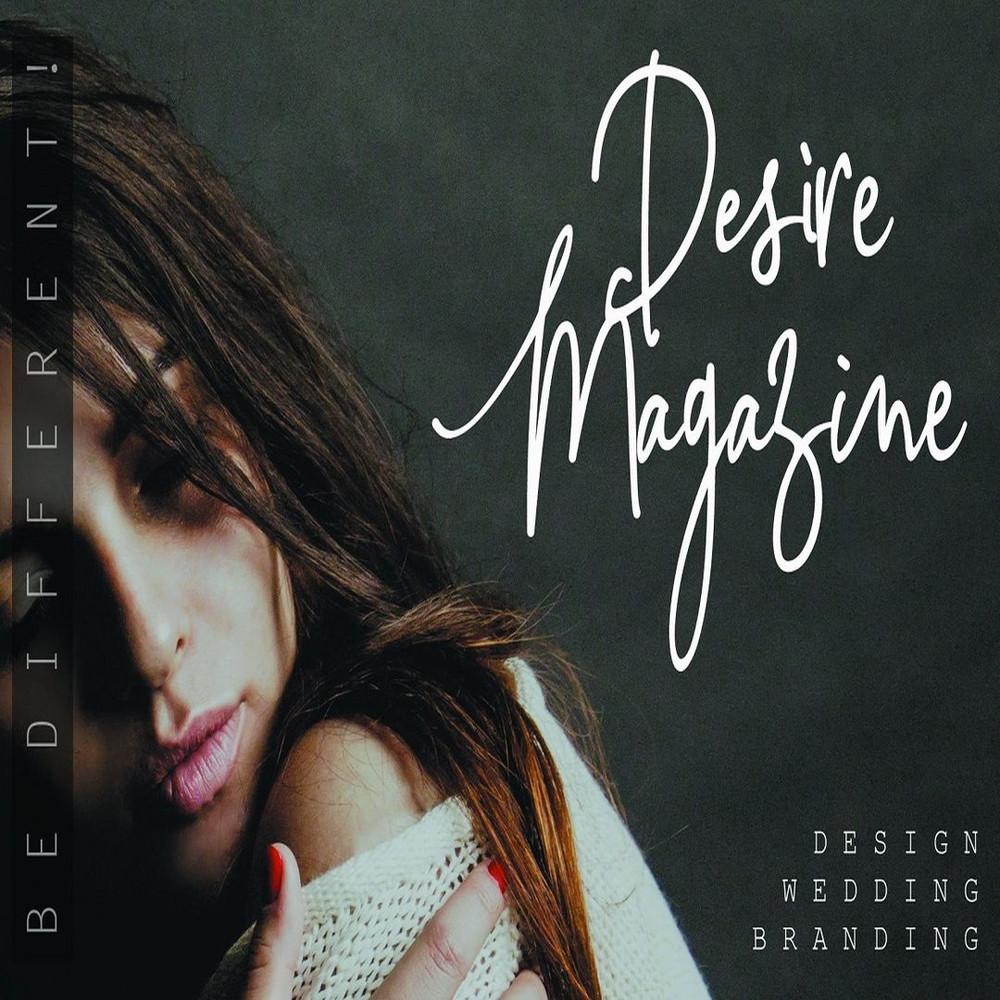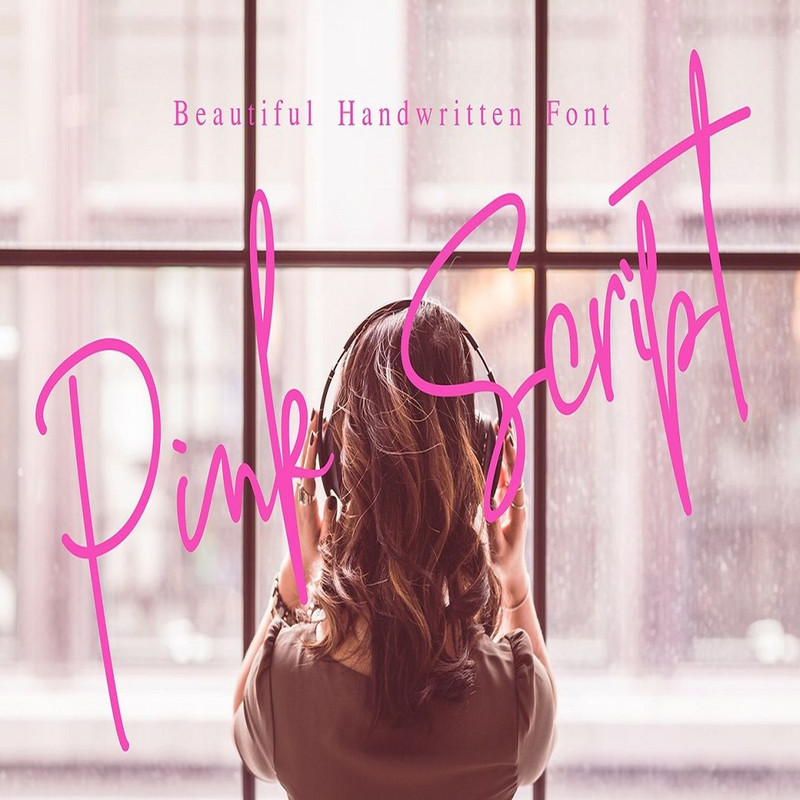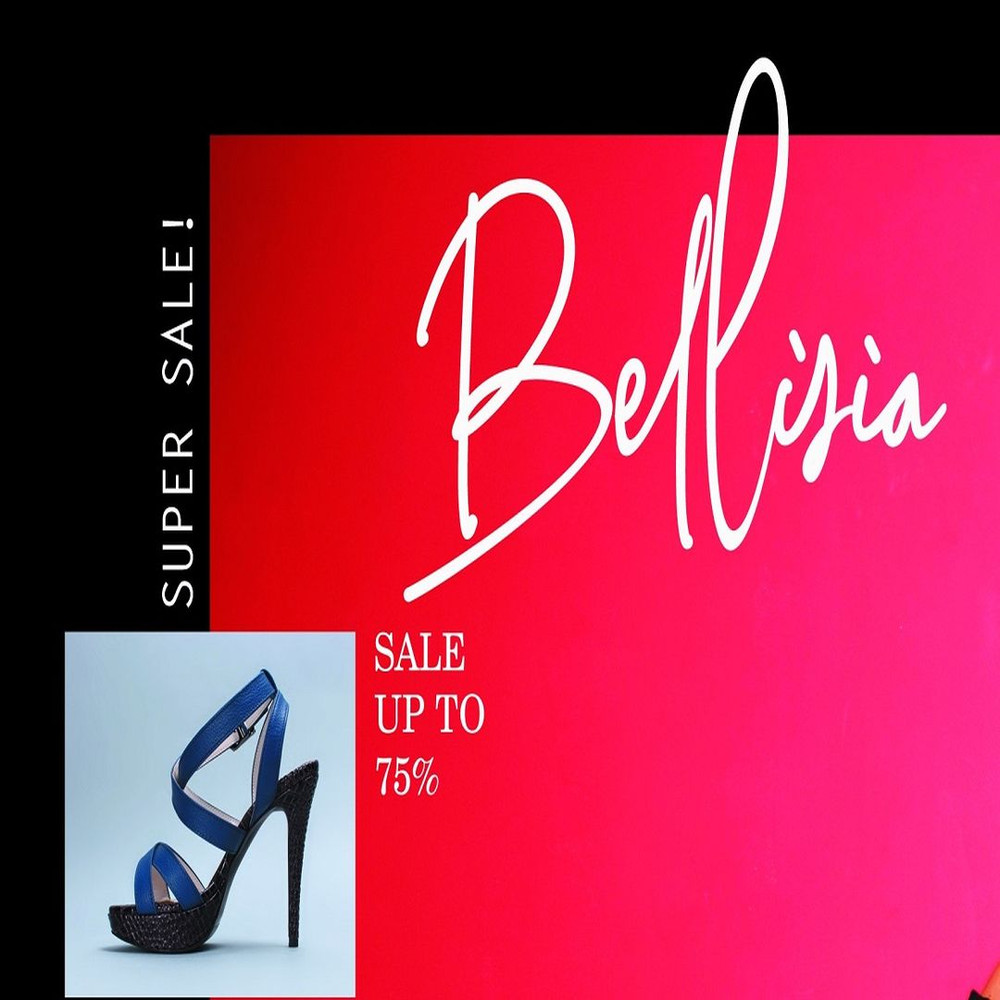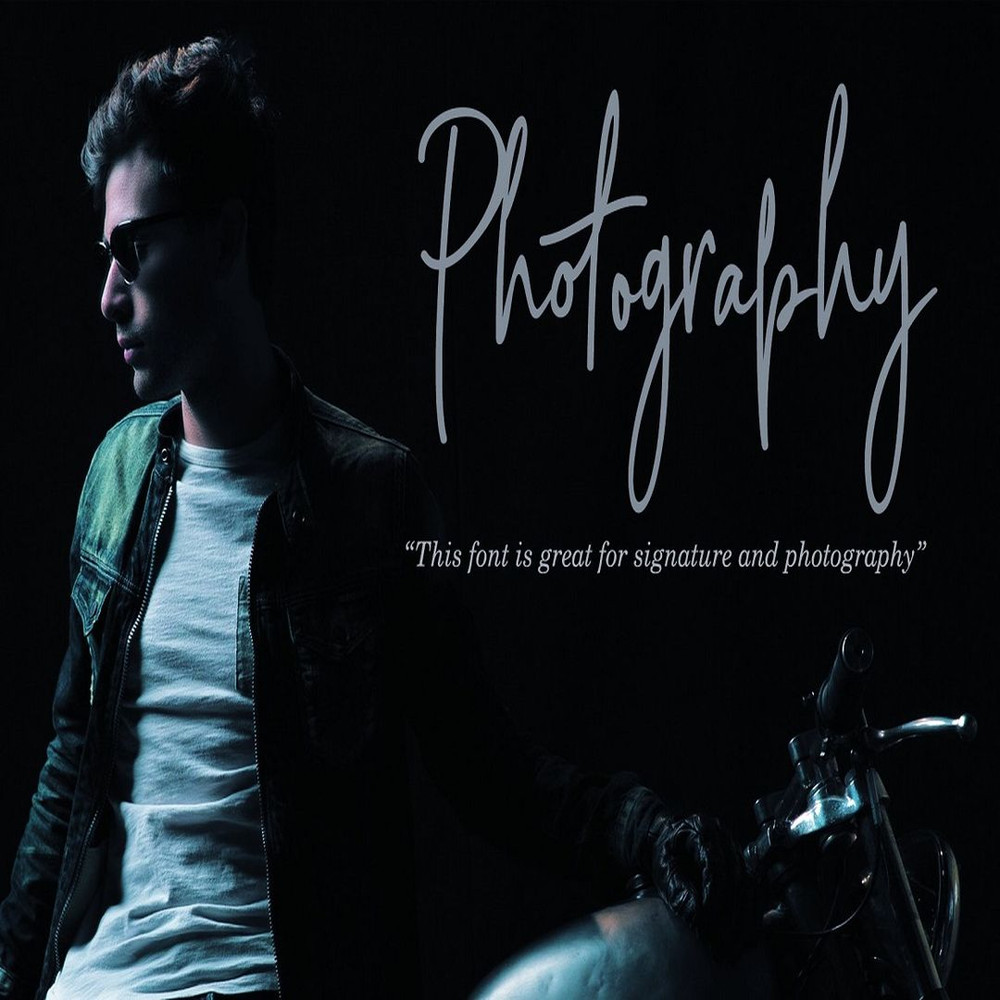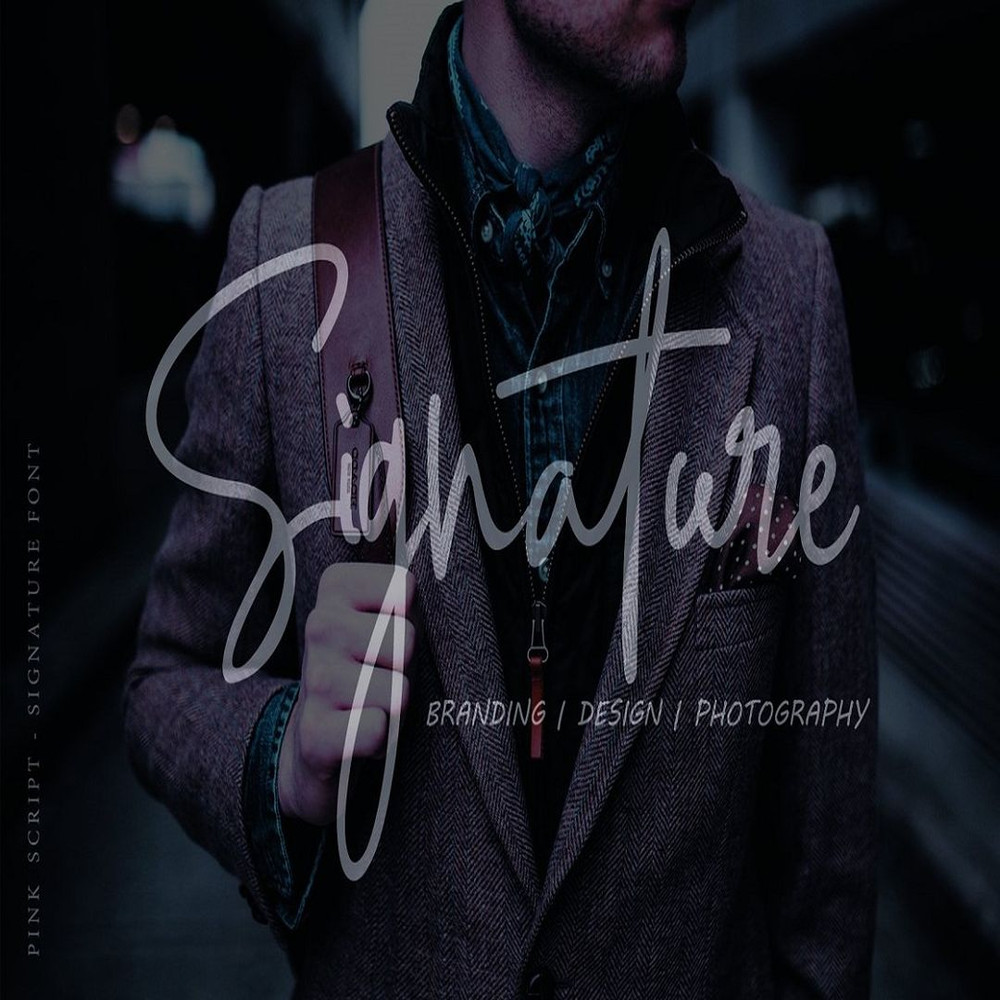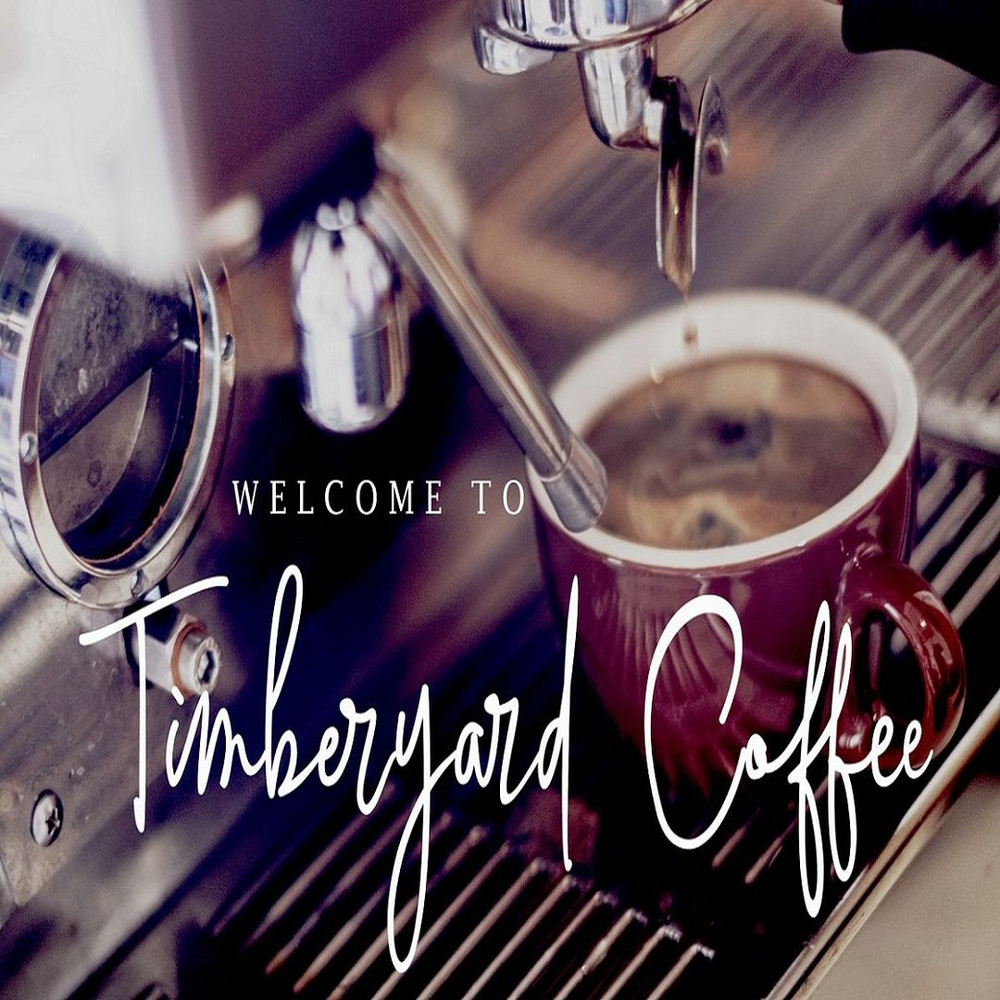
Pink Script // Beautiful Handwritten Font Trending Fonts - Digital Font
Pink Script – A fashionable and quirky new handwriting font script. Pink Script font was created to look as close to a natural handwritten script as possible by including over 100 ligatures, and a full set of lowercase alternates.